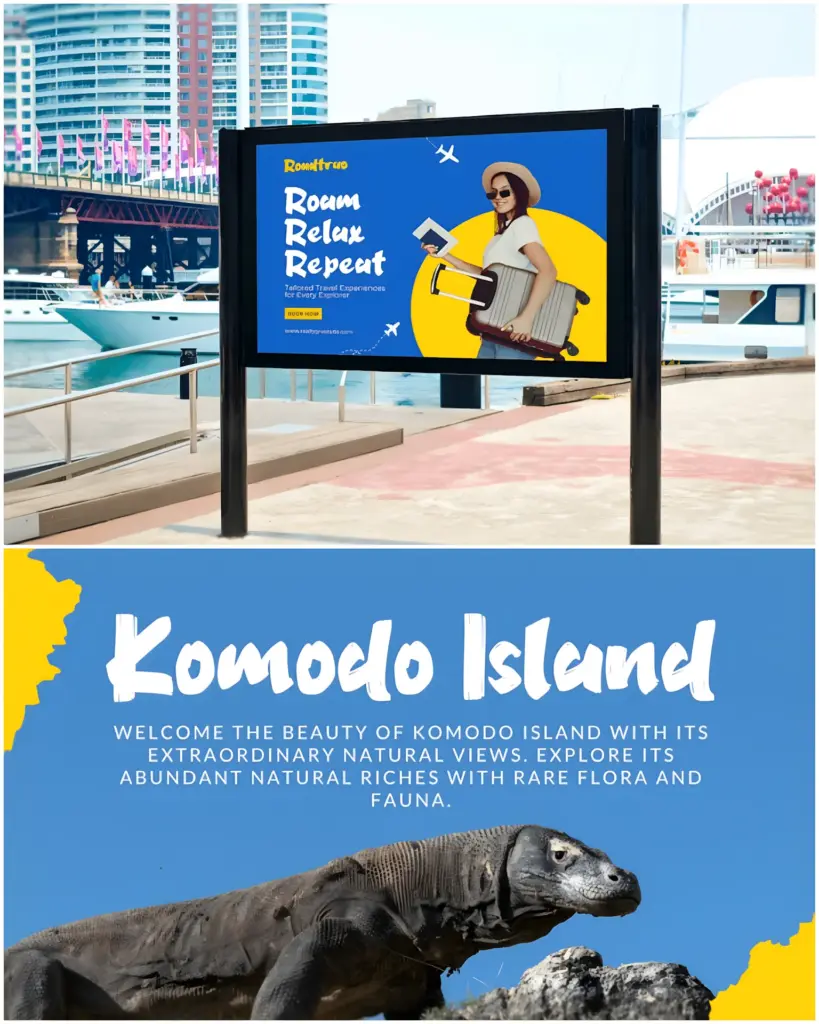
Travel Camera Brush Script Font for Creative Branding
Travel Camera hand brush display font featuring bold handwritten lettering for travel branding, posters, social media, and adventure typography.
Travel Camera is a font that looks like it was written by hand with a brush. It has cool, artsy strokes. It’s great if you need a personal, lively touch for what you’re making. This font is perfect for posters, logos, and brand designs when you want to look profesh but still give off that feeling of being creative and ready for anything.